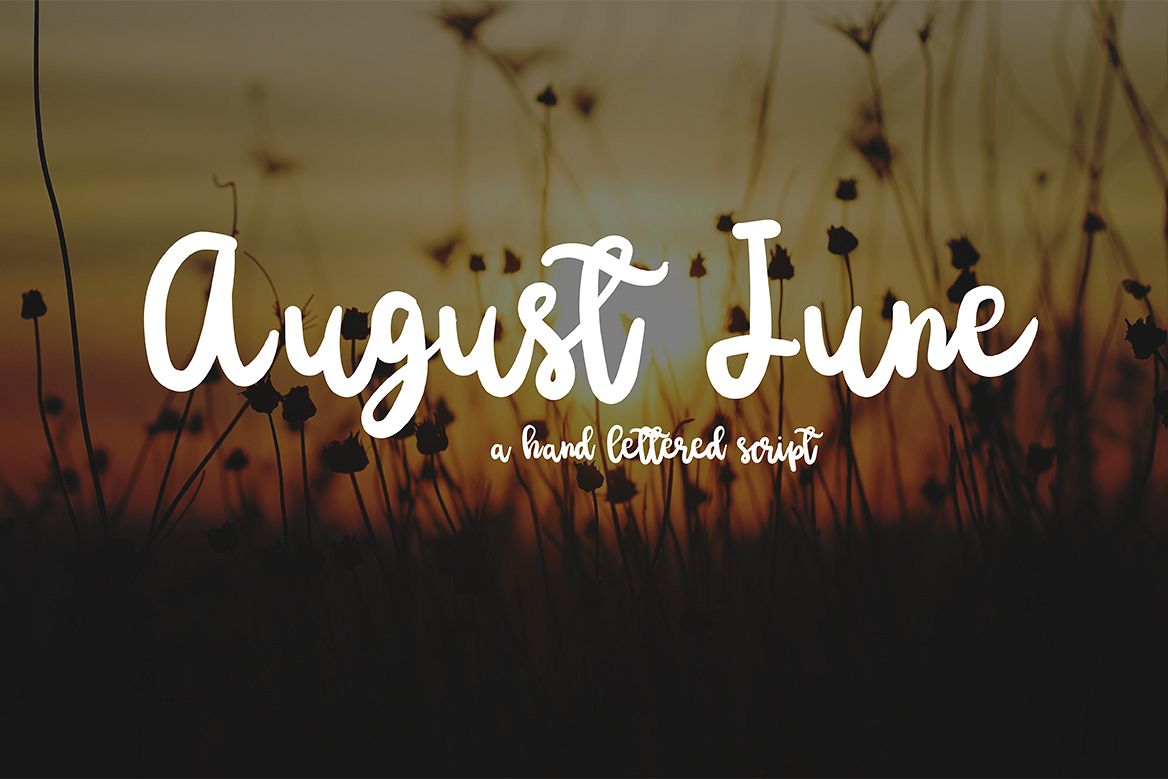
August June
Meet August June! A brand new handlettered script from OTSS. August June has the feeling of freedom, freestyle lettering, and a little bit of fun!
On The Spot Studio
August June
By On The Spot Studio